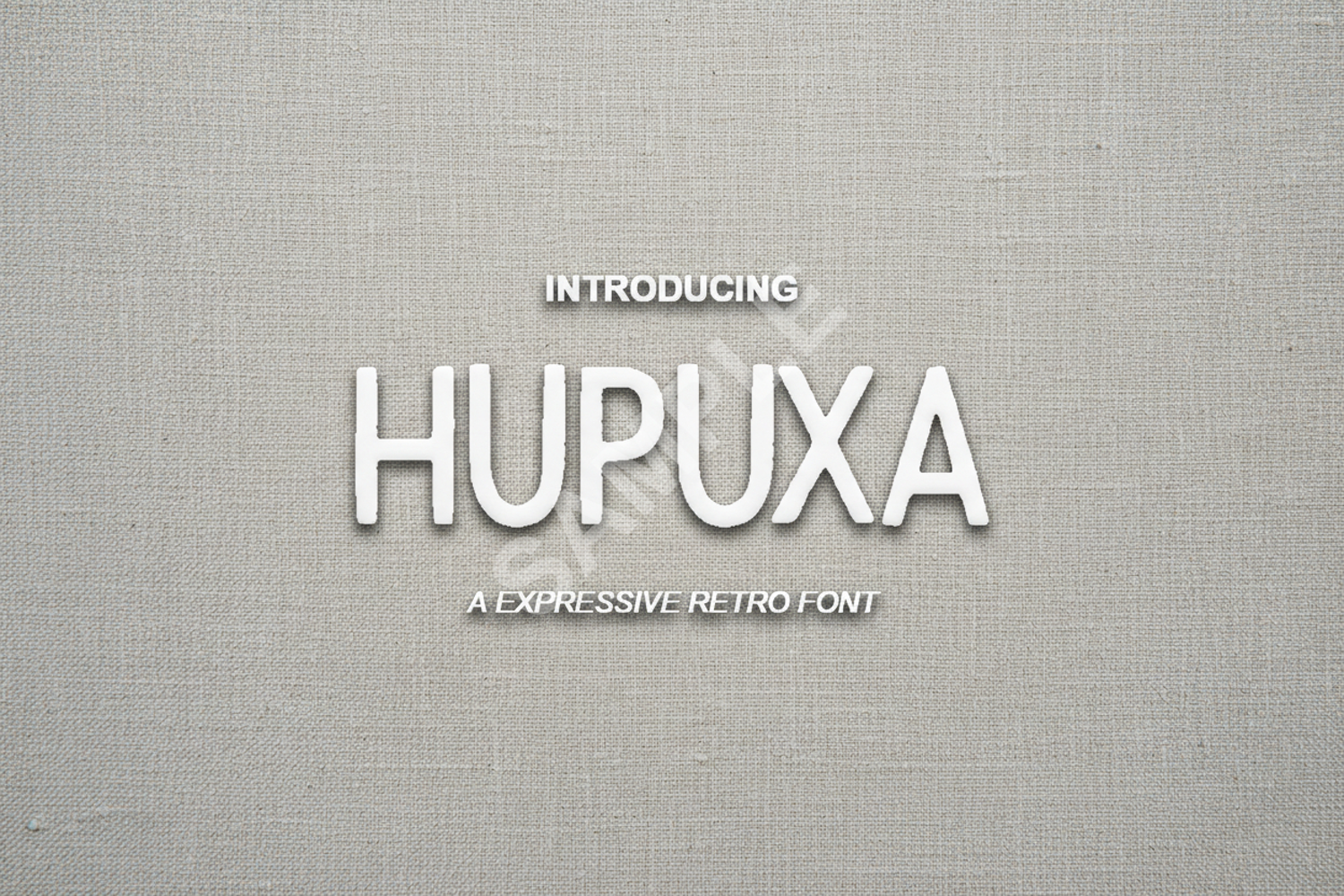
Hupuxa - Elegant Modern Serif Display Font
Hupuxa
Hupuxa is a premium serif typeface meticulously crafted for designers who demand sophistication and versatility. With its clean lines and timeless appeal, Hupuxa bridges the gap between classic elegance and modern minimalism, making it a must-have addition to your creative toolkit.
Hupuxa stands out with its balanced proportions and refined letterforms. Whether you are working on a high-end fashion project or a minimalist brand identity, this font provides the professional edge needed to elevate your designs. Its high-contrast strokes and unique terminals offer a distinctive look that commands attention while remaining highly legible.
- Multilingual Support for global accessibility
- Comprehensive set of numbers and punctuation
- Luxury Branding: Perfect for high-end logos, business cards, and brand identities.
- Editorial Design: Ideal for magazine layouts, bold headlines, and book covers.
- Wedding Stationery: Adds a touch of class to invitations, menus, and place cards.
- Social Media: Create eye-catching quotes and sophisticated promotional graphics.
- Fashion & Lifestyle: Enhances the aesthetic of boutique labels, lookbooks, and signage.